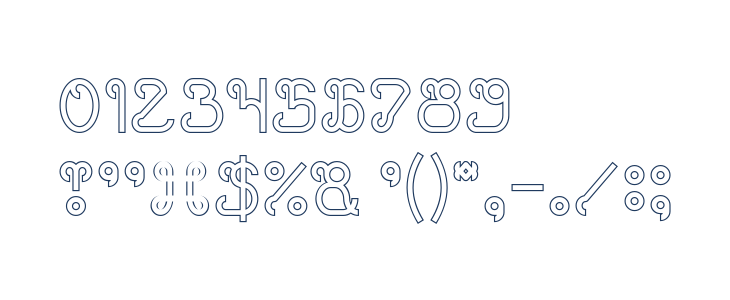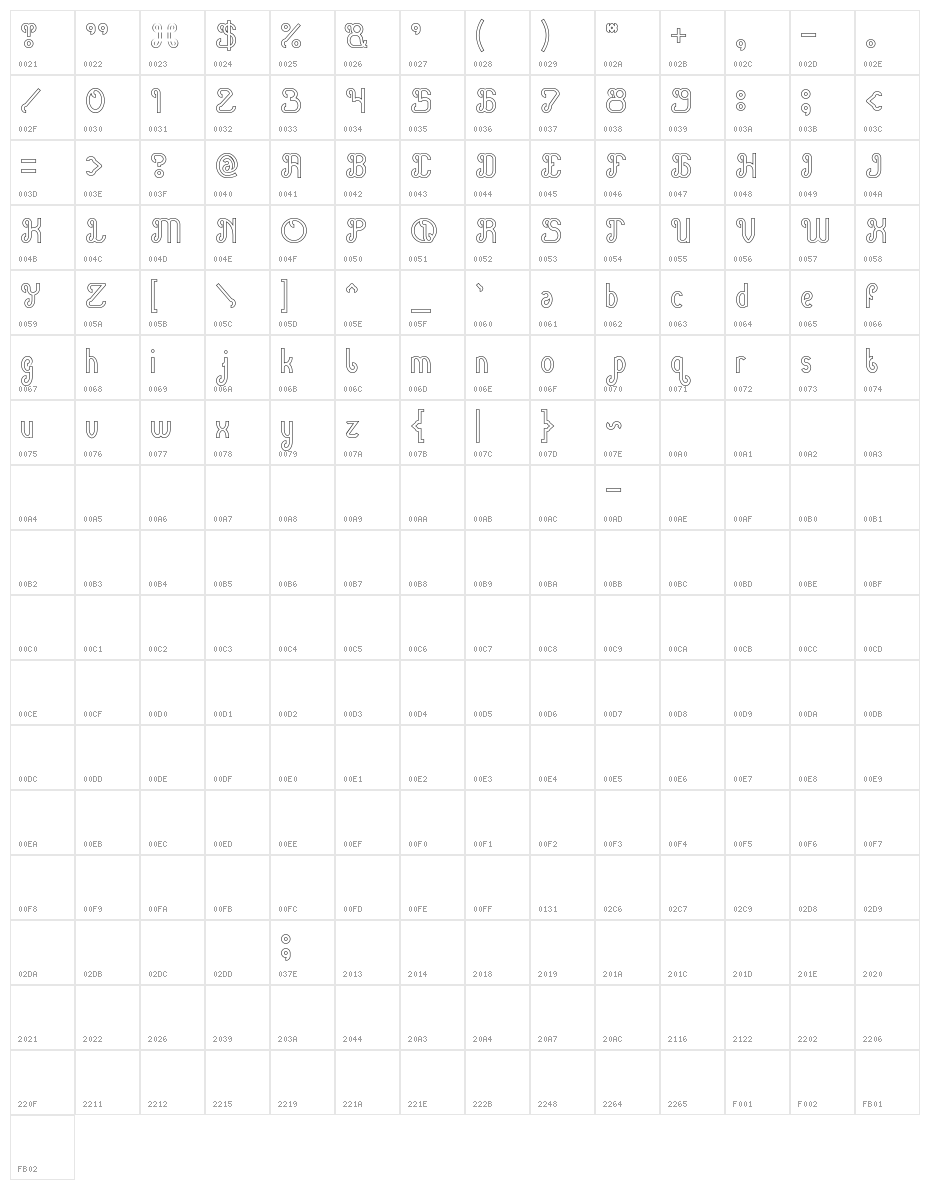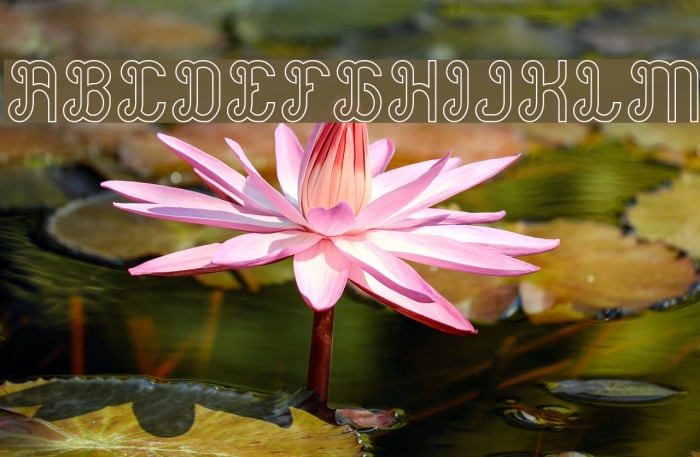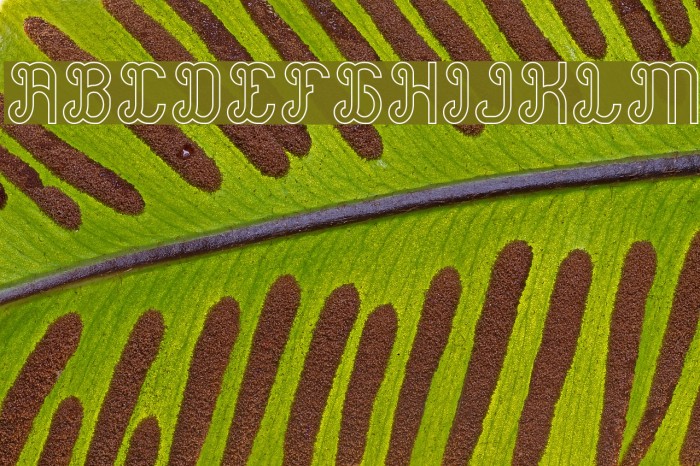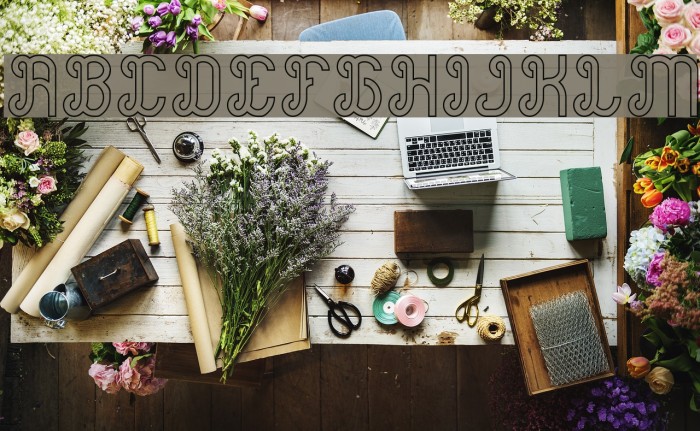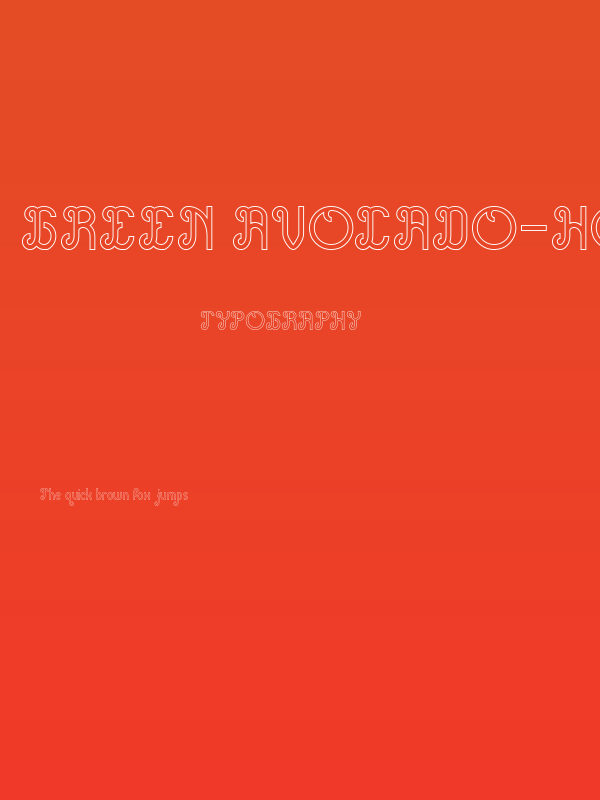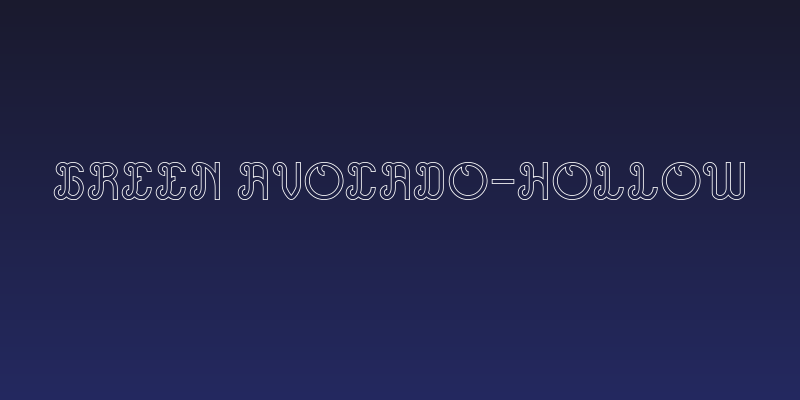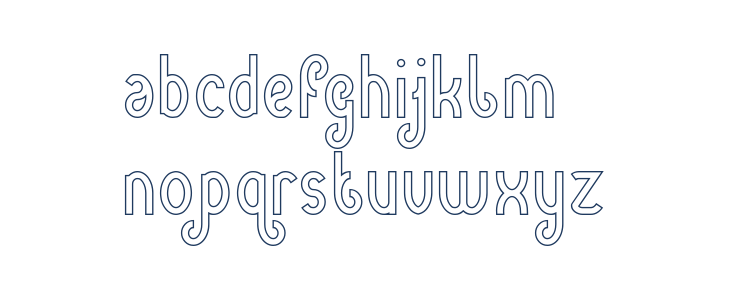
Green Avocado-Hollow Font
Green Avocado-Hollow Description
This font features a unique hollow design with a playful and decorative style. The characters are outlined, creating a light and airy appearance. The uppercase letters have a whimsical flair with rounded edges and subtle curves, while the lowercase letters maintain a consistent style with a slightly more compact form. The numerals are bold and maintain the same hollow effect, ensuring readability. Special characters are creatively designed to match the overall aesthetic, making this font suitable for eye-catching designs. The font's distinct style makes it ideal for projects that require a fun and engaging look.
| Overall Style | Playful, Decorative |